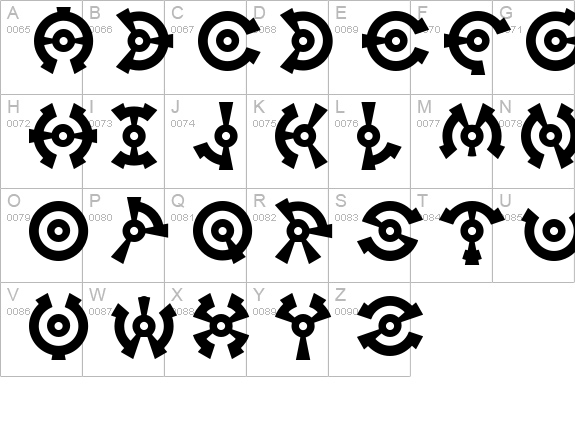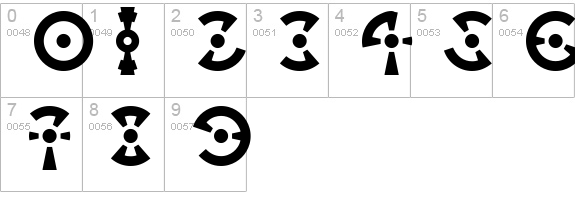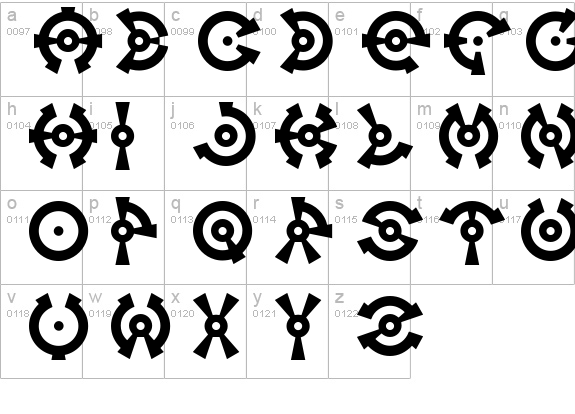
Anillo font is a stylish and modern typeface that exudes elegance and sophistication. Its sleek lines and unique curves make it perfect for a wide range of design projects, from logos to branding to editorial layouts. The versatility of Anillo font allows it to be used in both digital and print applications, making it a must-have for any designer looking to add a touch of class to their work. The best part about Anillo font is that it is completely free to download at FontsMarket.com. This means that you can access this stunning typeface without having to worry about breaking the bank. Whether you are a seasoned designer or just starting out, Anillo font is sure to elevate your projects and leave a lasting impression on your audience. Don't miss out on the opportunity to enhance your designs with the elegant and timeless Anillo font. Download it for free today at FontsMarket.com and take your creations to the next level.